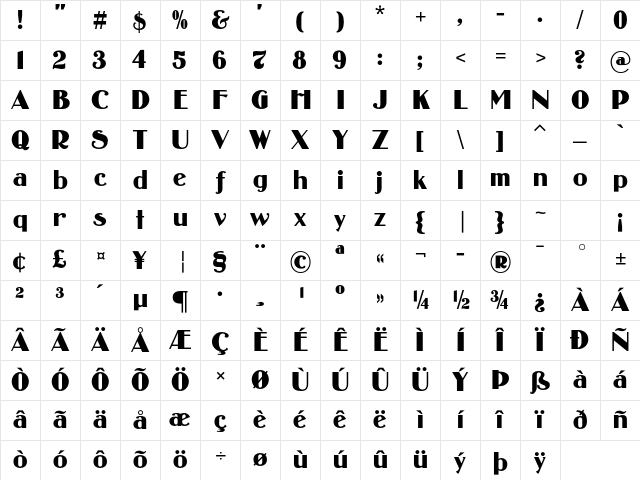
Complete Binner Poster MT Std Regular glyph index. Displaying only characters natively supported by Binner Poster MT Std Regular font.
Binner Poster MT Std is a composed and adaptable typeface that performs quietly and consistently across a wide range of design contexts.